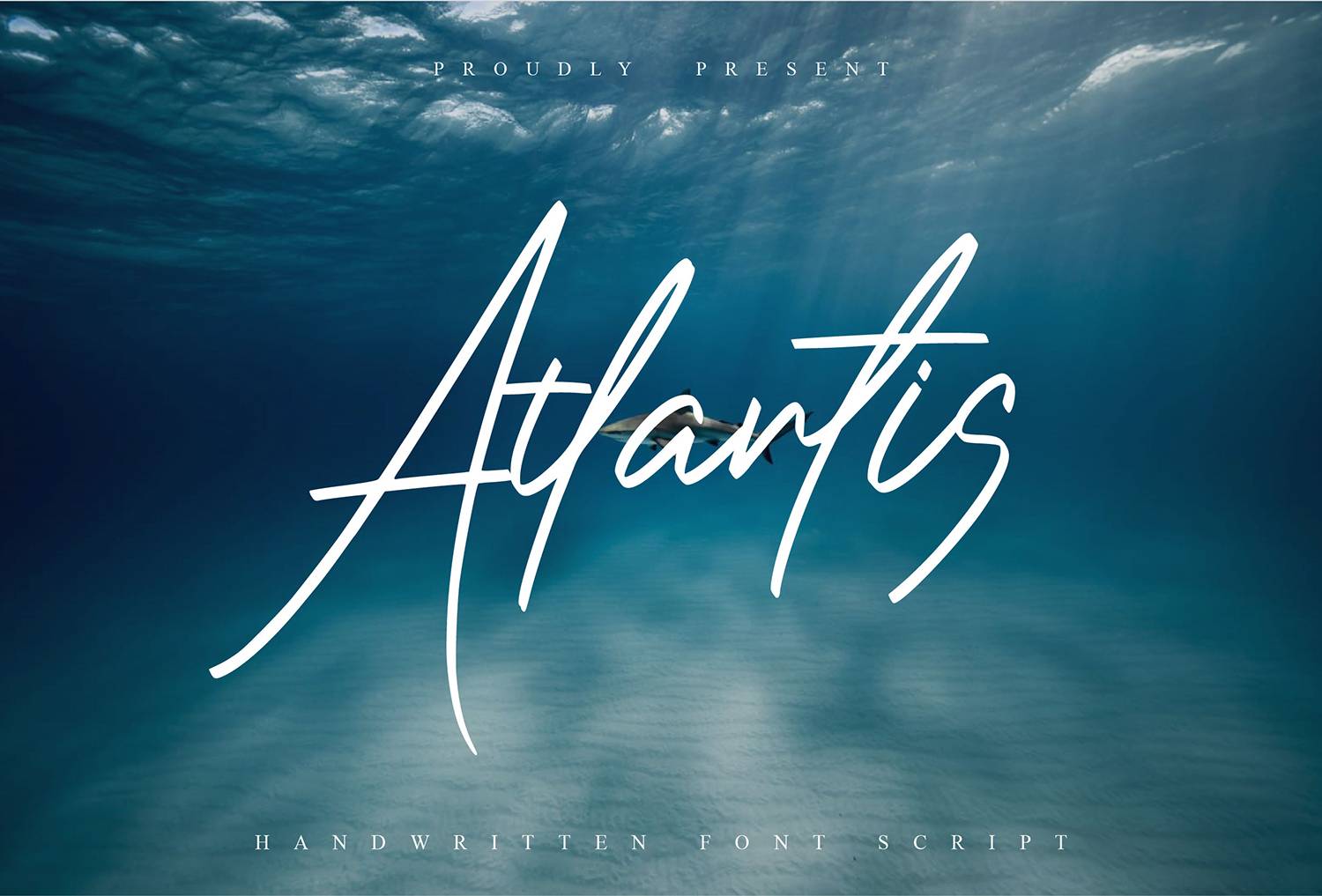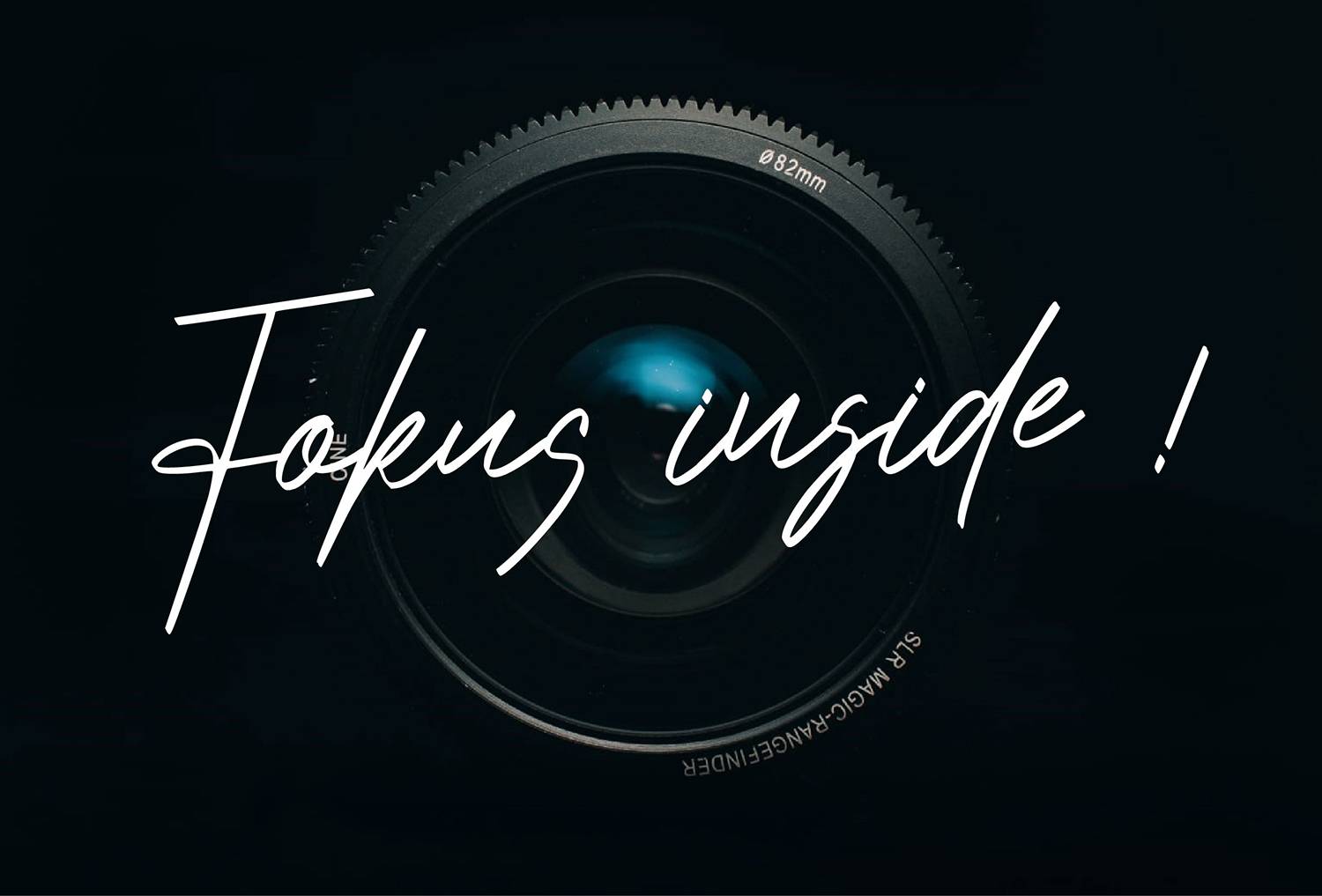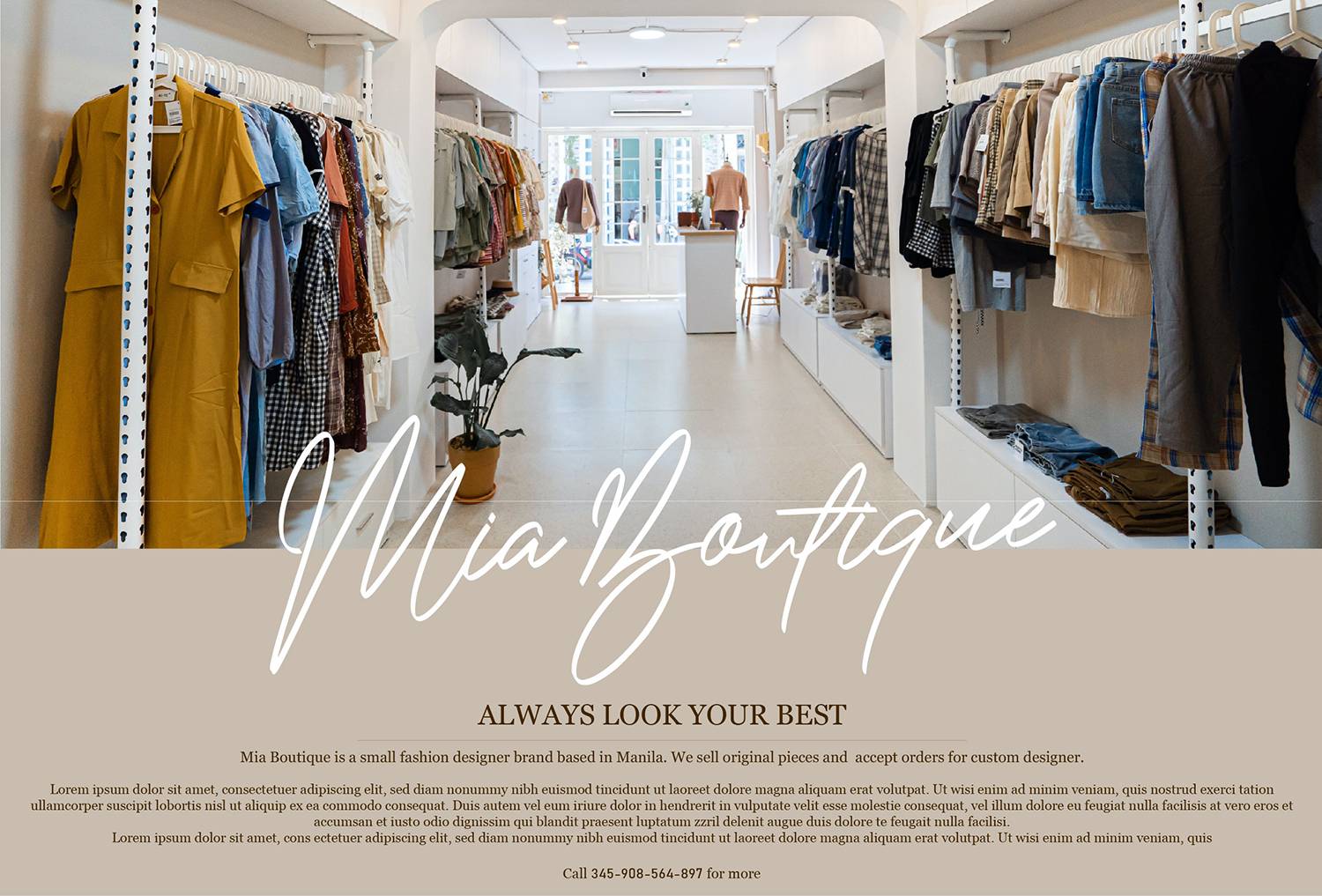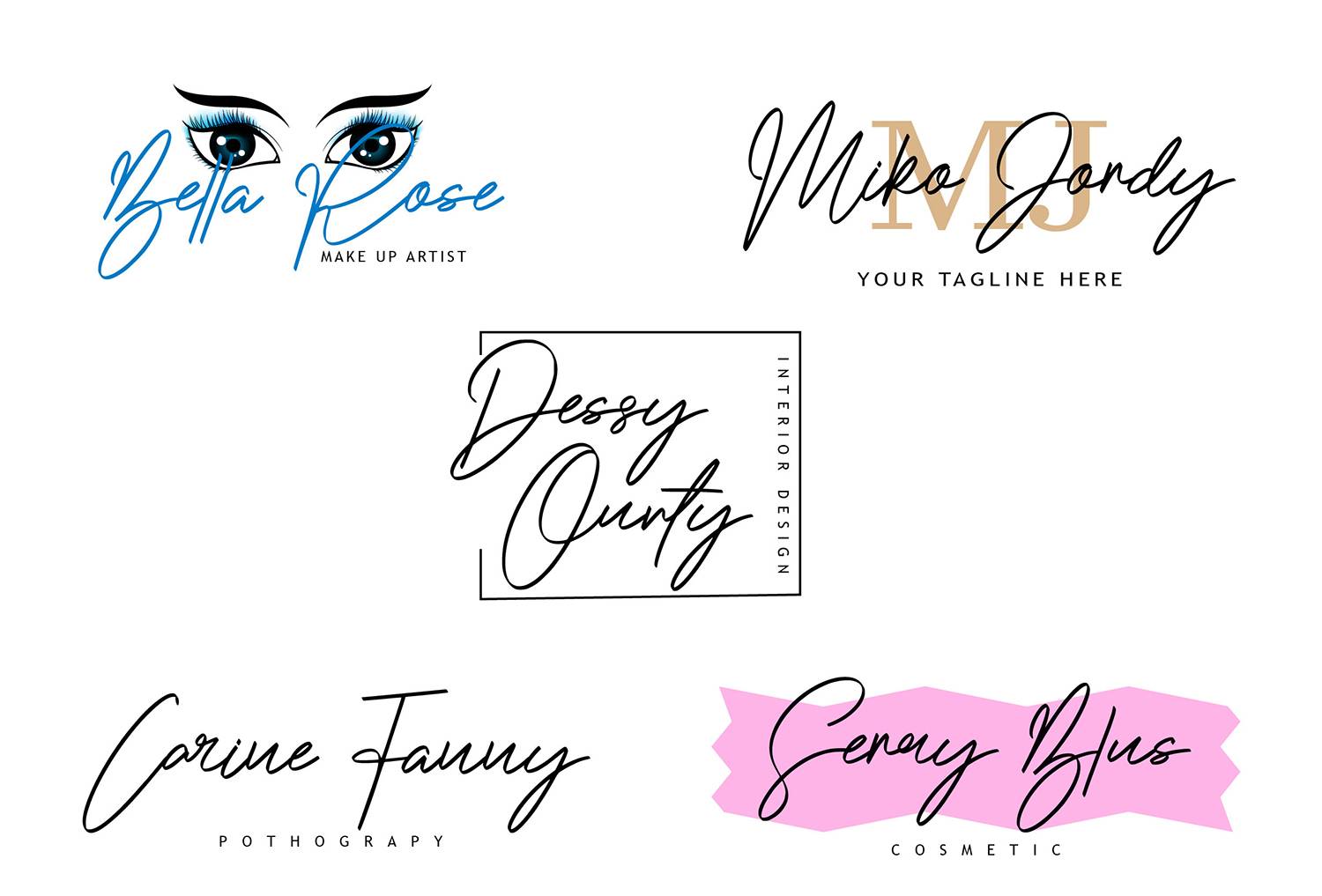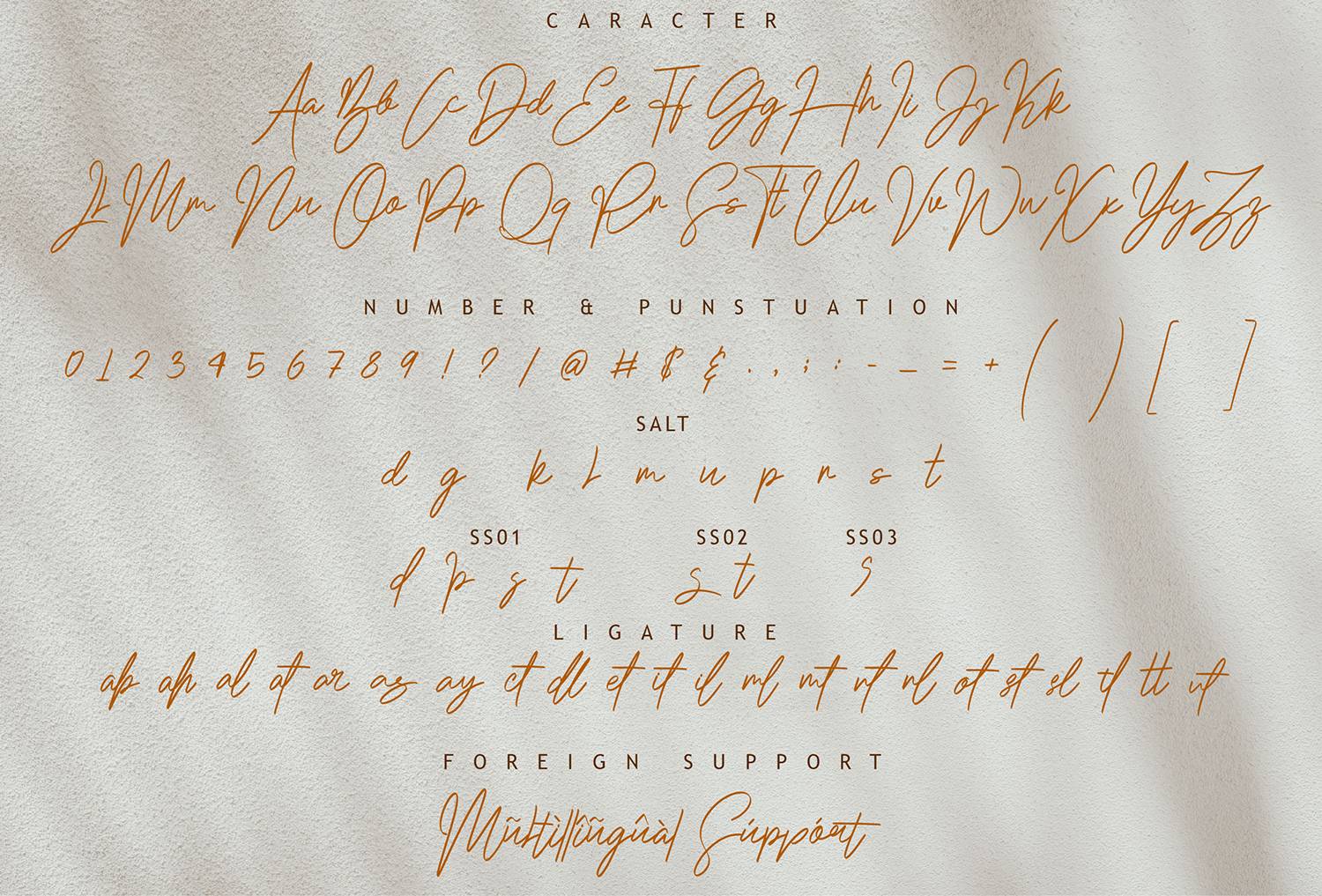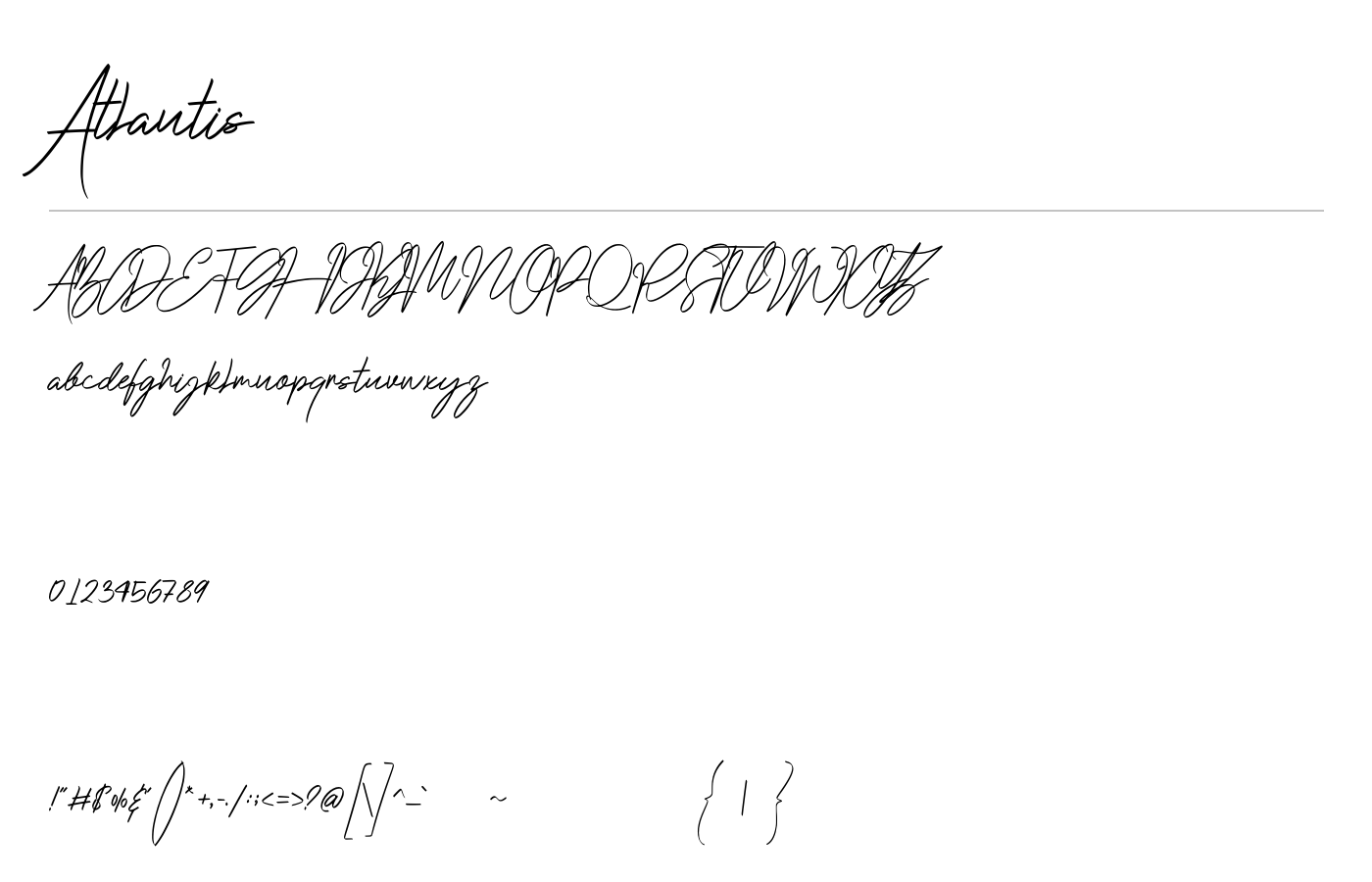
Atlantis is a delicate, elegant script font with a light, airy feel and flowing, hand-drawn strokes that create a graceful and sophisticated impression. Its tall, slender letterforms and smooth cursive connections make it ideal for luxury branding, invitations, and stylish editorial design where a refined, personal touch is desired. This font works best in headlines or display uses, lending a modern yet timeless elegance to any project.
Atlantis Font
About Atlantis Font
| Font family | Atlantis Font |
| Designer | AKHMAD RIYAN DANUARTA |